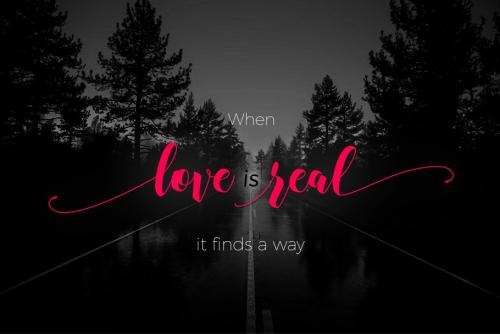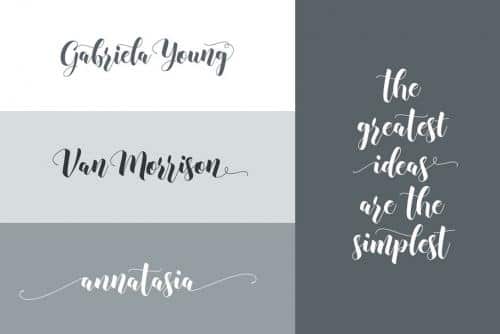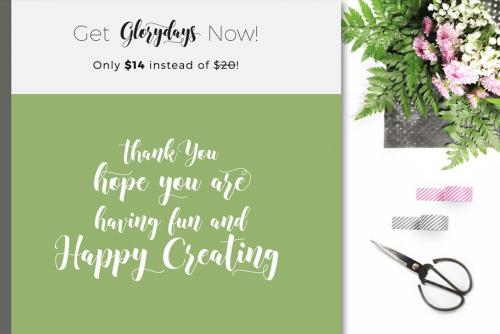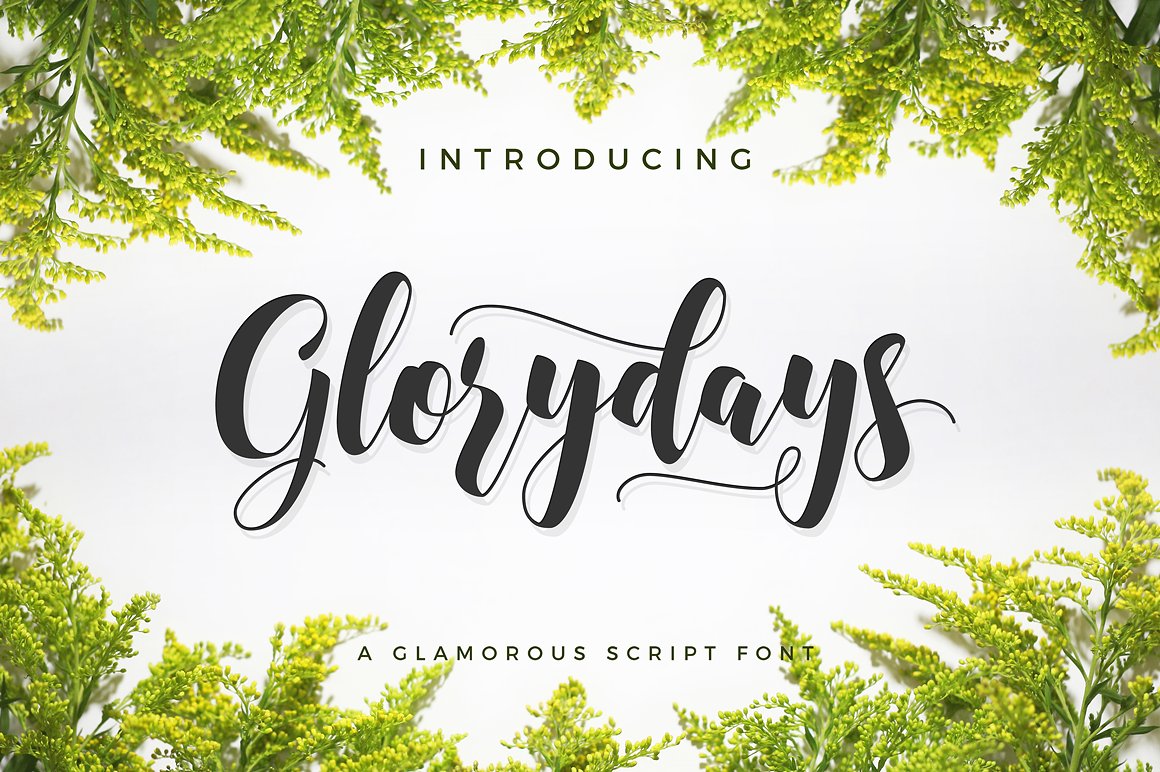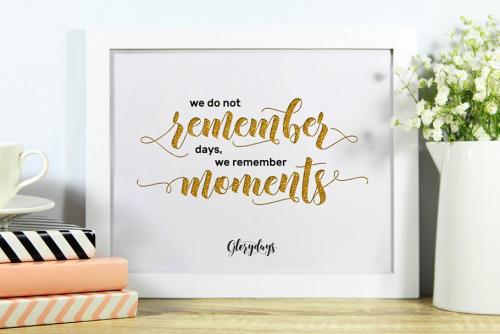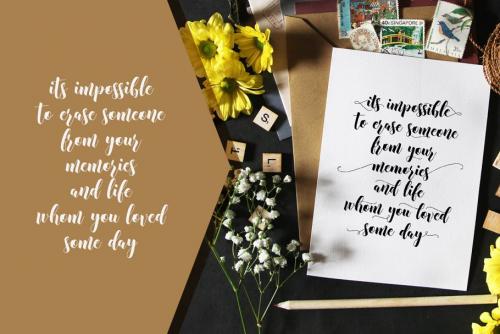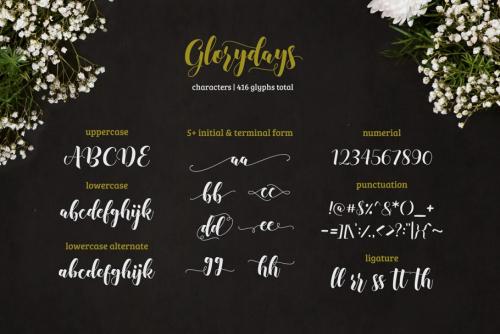
Glorydays font is suitable for any design needs, modern invitation design, branding, blog design, modern advertising design, invitation, Art Quote, Home decor, Book/Cover Title, Invitation, special events, birthday, custom mug, pillow, t-shirts, any brush lettering needs and more.